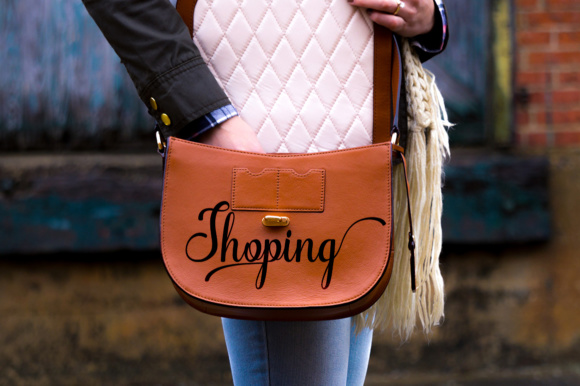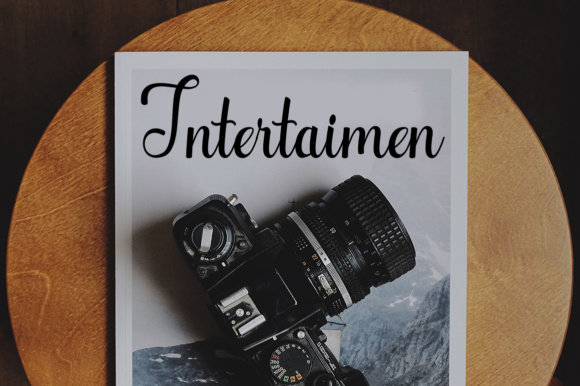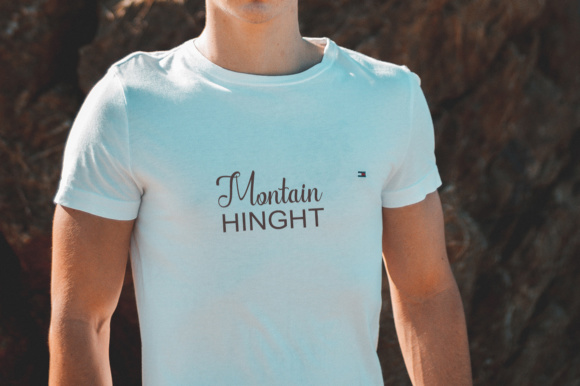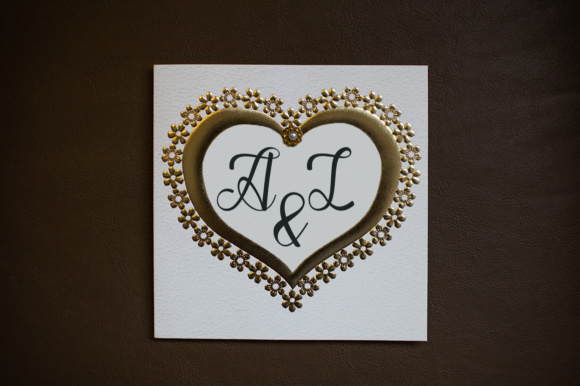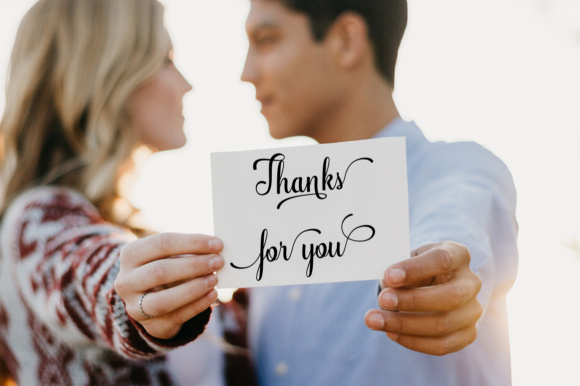
Alifa Font
About Alifa Font
Alifa is a fresh and modern calligraphy typeface. It has decorative characters and a dancing baseline. It’s wonderful on invitations, greeting cards, branding materials and every other design that needs a striking yet elegant typeface.